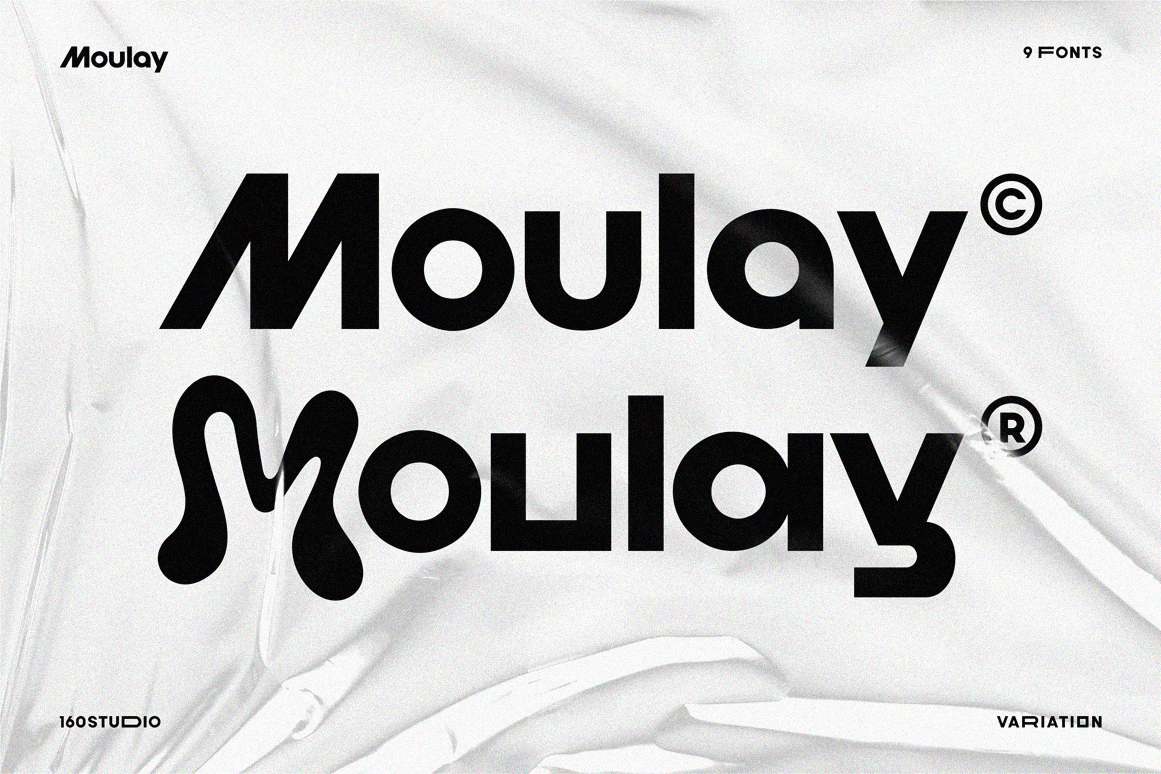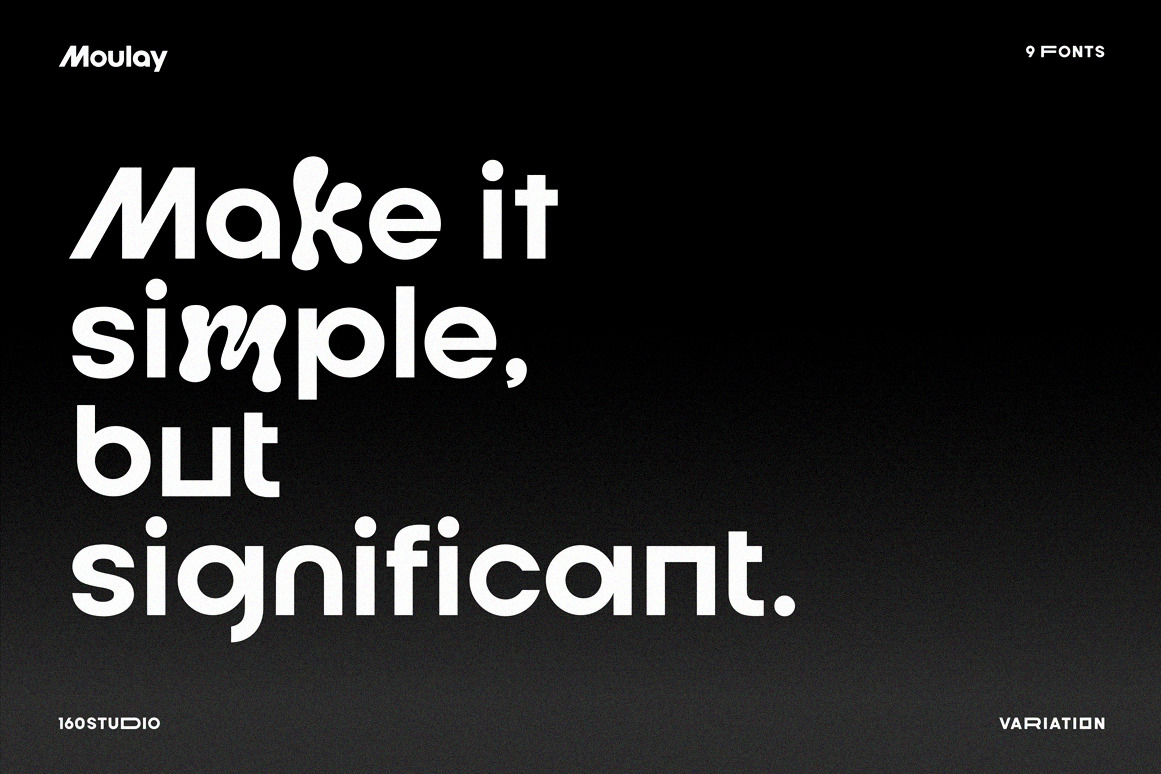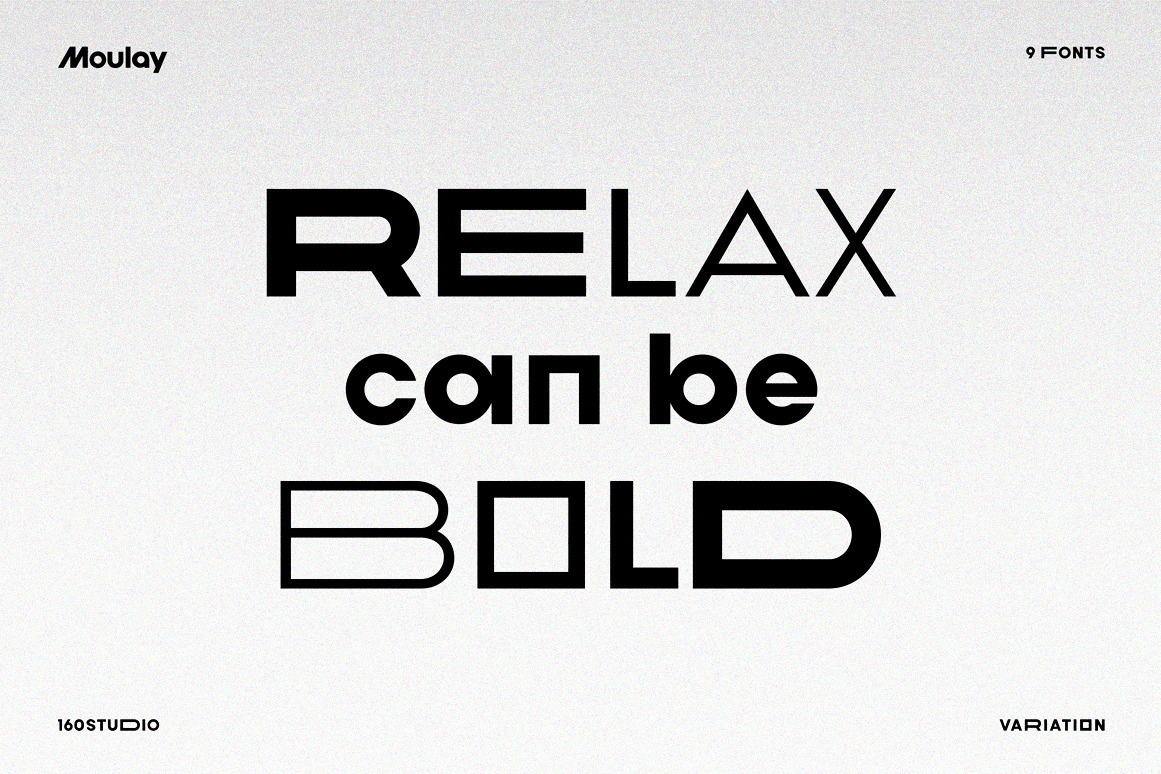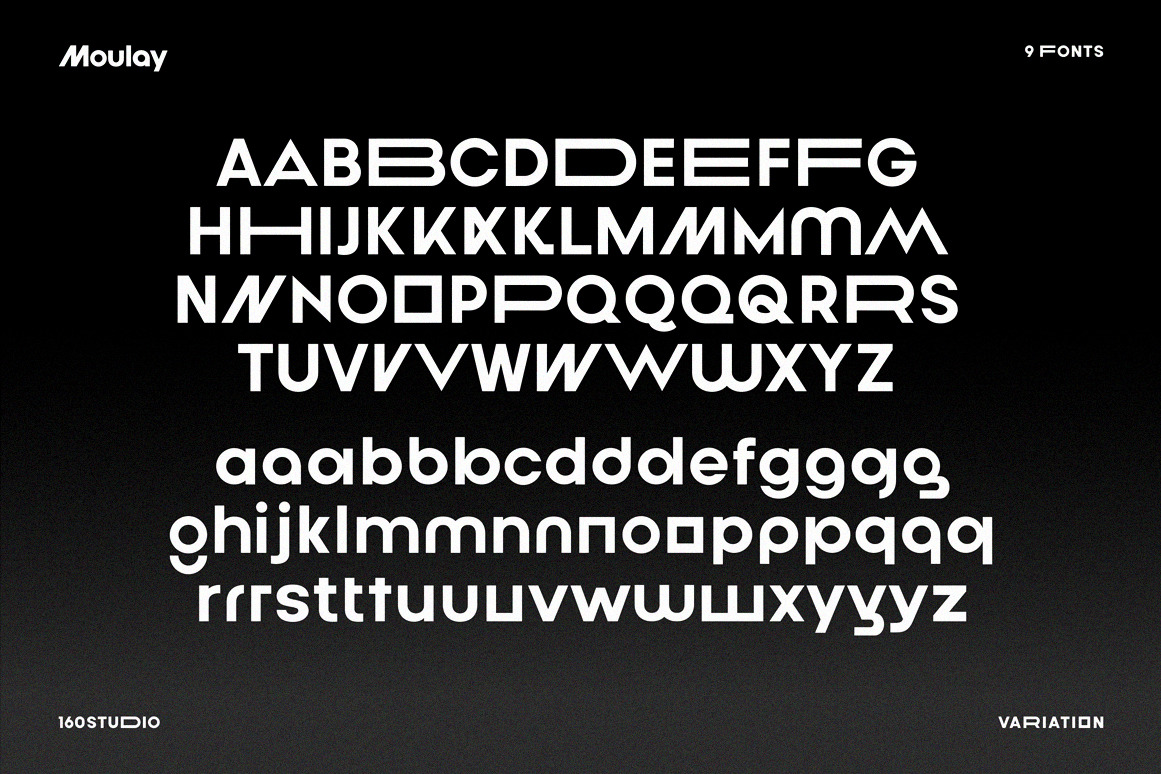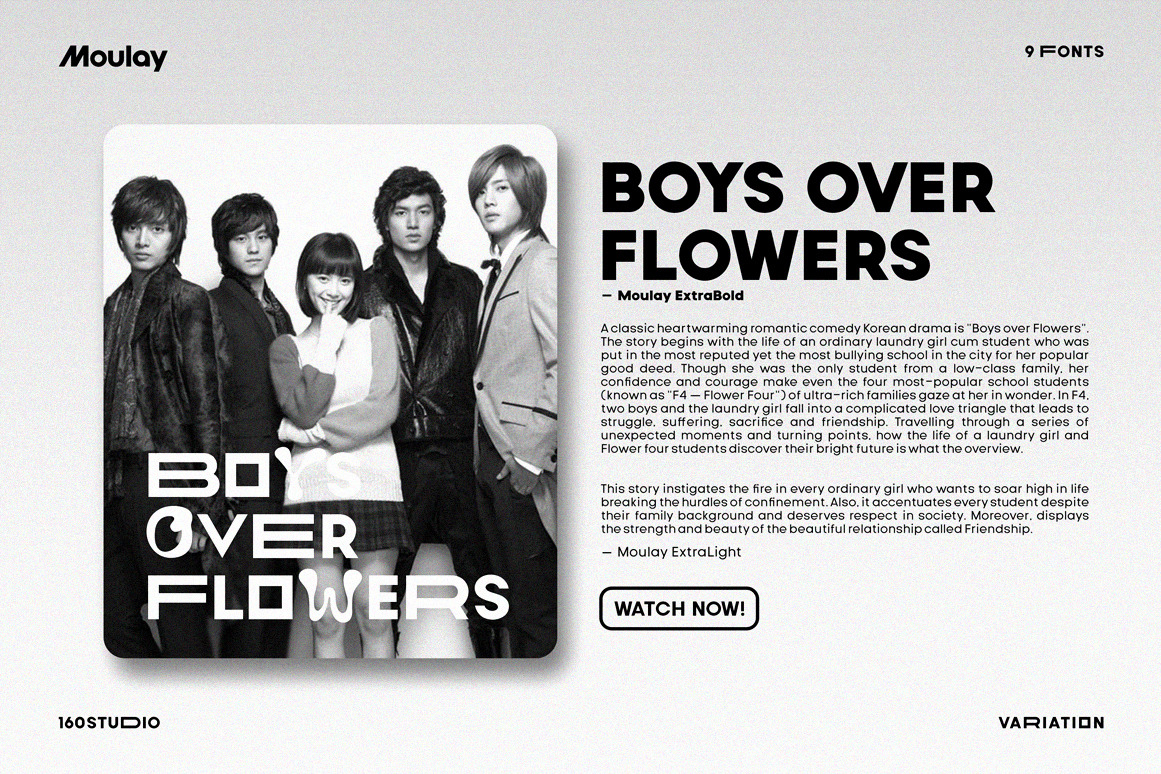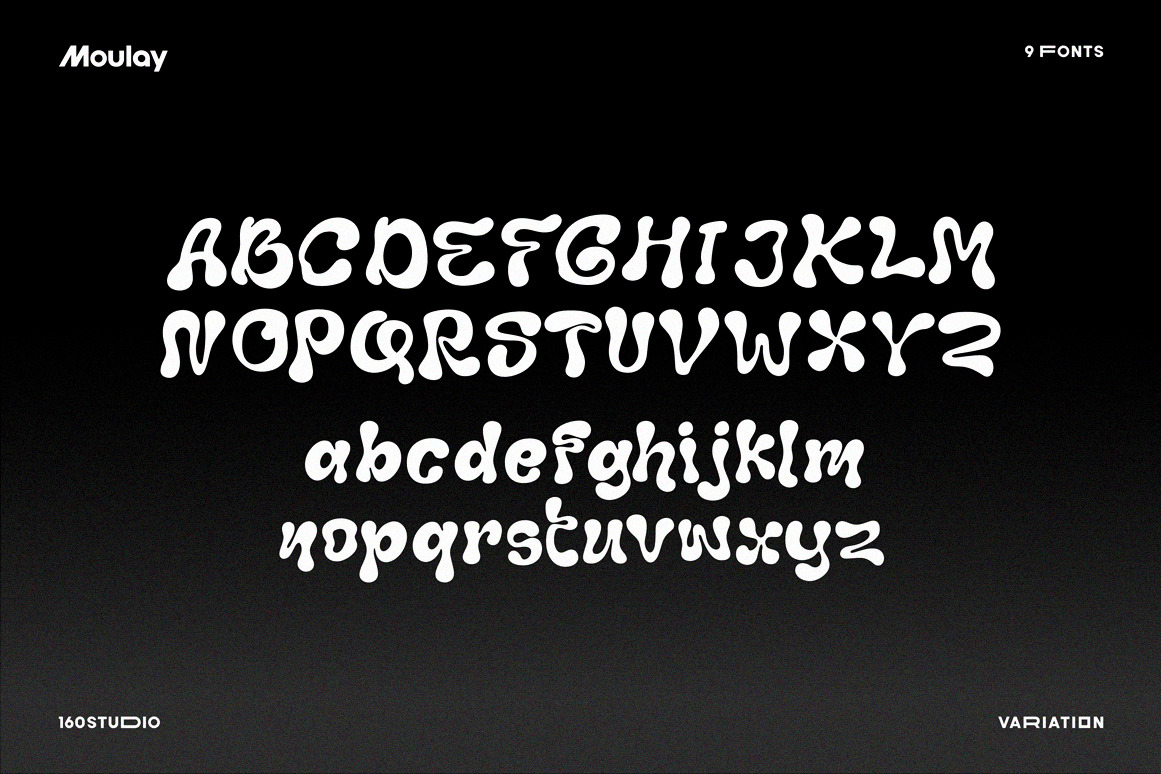
Moulay Font
Discover Moulay – a casual, strong, and fun pairing of Sans typefaces. These meticulously crafted fonts strike a perfect balance, designed to excel individually and harmonize seamlessly when paired together.
Ideal for enhancing your logo, magazine layouts, editorials, displays, quotes, posters, products, and more.
NOTE: Moulay Bubble Crafted exclusively for visual appeal, this font is designed for short and impactful text. Featuring a fusion of basic letters and numbers, it is ideal for seamless pairing with the elegant Moulay typeface.